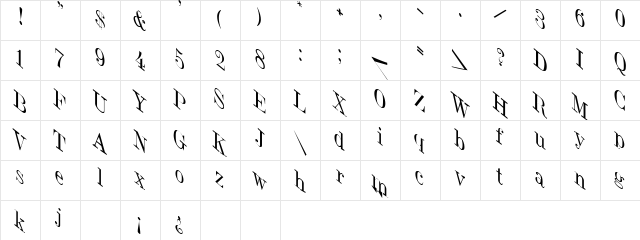
Cryptographer Italic Regular
Design Context for Cryptographer Italic Typeface
Cryptographer Italic is a composed and adaptable typeface that performs quietly and consistently across a wide range of design contexts. Its italic angle brings a sense of urgency and motion to the letterforms.